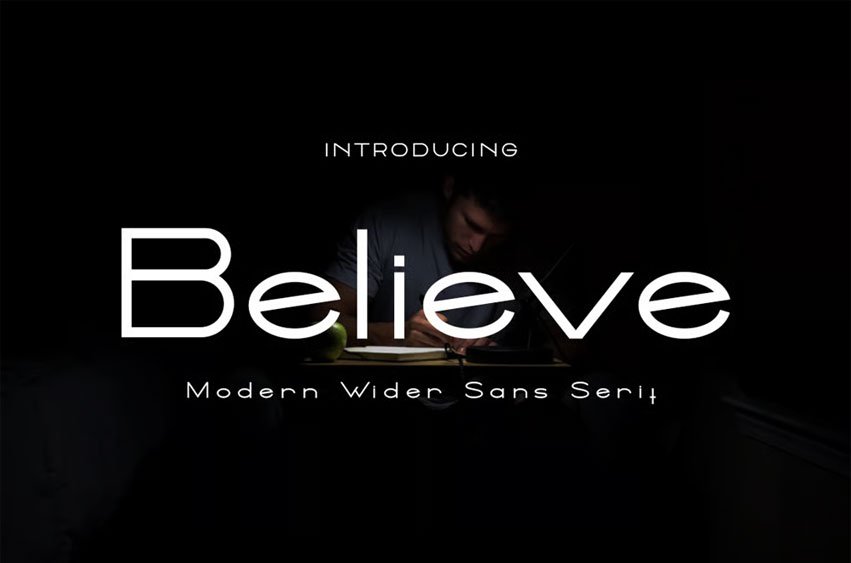
Believe Font is a stylish modern sans serif font with casual chic flair. It is perfect for branding, wedding invitation, promotion, product packaging, website and other needs.
You will get full set of lowercase and uppercase letters, numerals and punctuation, multilingual symbols.